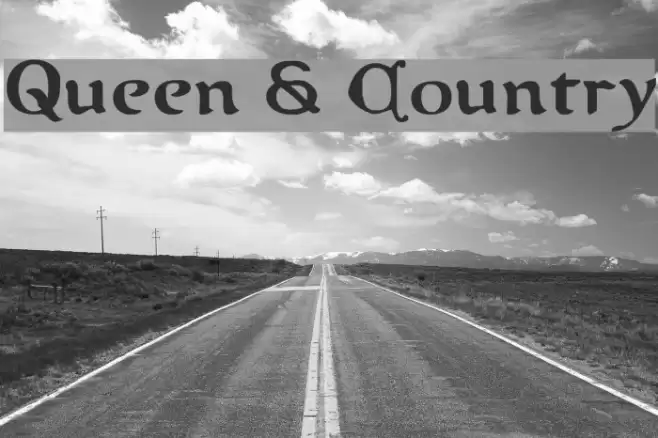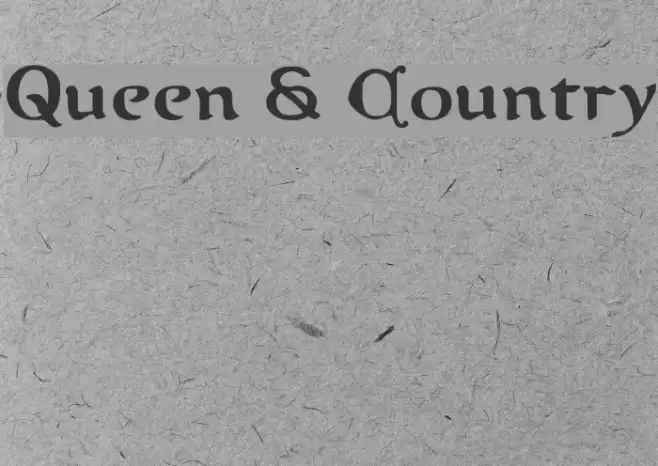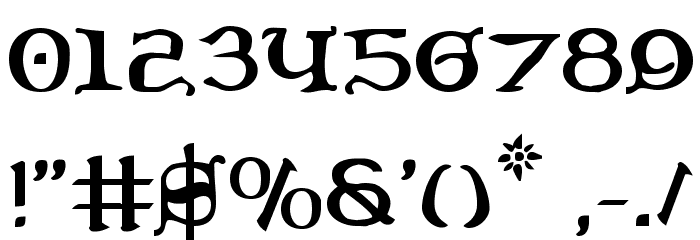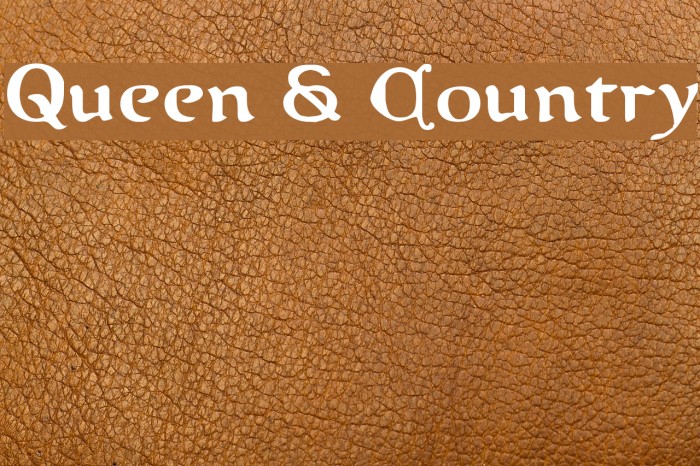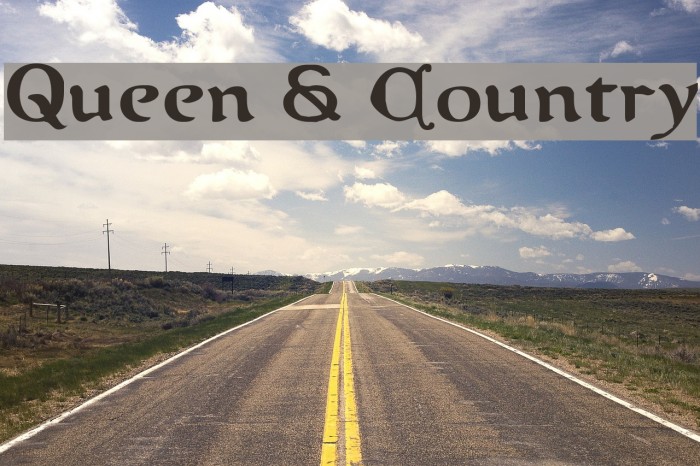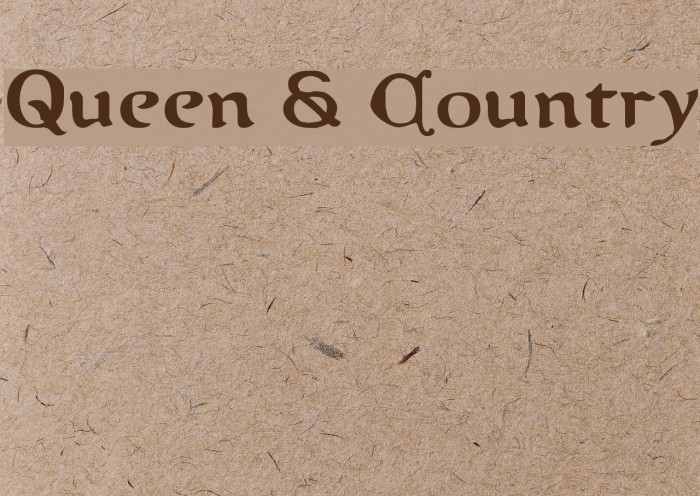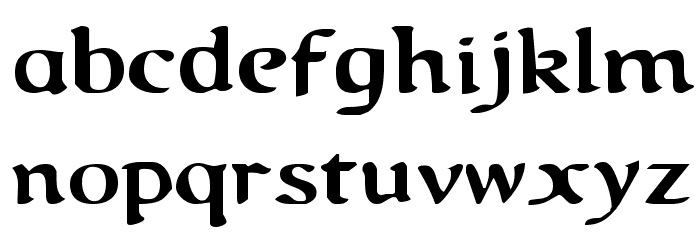
Queen & Country Font
Queen & Country Description
This font features a bold and dramatic style, characterized by its ornate and intricate design. The uppercase letters have a distinct medieval flair, with sharp angles and decorative elements that give them a regal appearance. The lowercase letters maintain a consistent style, with smooth curves and a slightly condensed form that complements the uppercase. The numerals are equally stylized, with unique shapes that add to the overall aesthetic. Special characters are designed with the same attention to detail, ensuring a cohesive look across all glyphs. This font's bold strokes and high contrast make it stand out, while its decorative elements add a touch of elegance and sophistication.
A bold, decorative font with a medieval and regal style from Gothic fonts.
- Proposed Projects: Ideal for projects requiring a historical or fantasy theme, such as book covers, posters, or themed event invitations.